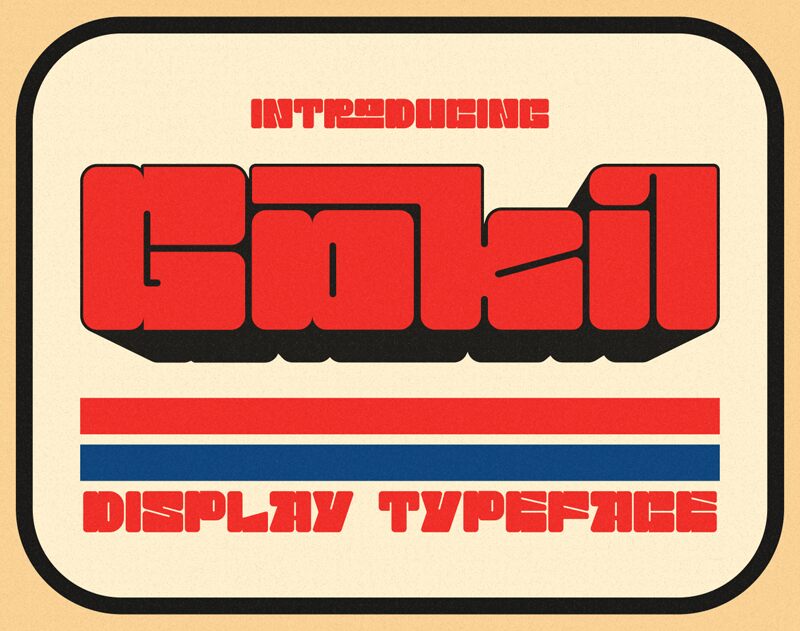
Gokil font by Fajar Ramadan of Eotype is a display typeface with funky groovy letter shapes. Drawing inspiration from retro styles, its geometric modern characters have expanded strokes to add high visual impact. The chunky uppercase characters are sure to stand out, making it a bold font suitable for every versatile project that needs originality.
Use Gokil in editorial headlines and cover designs for books and magazines. Rock your visual identity projects including logotype creation, advertising posters, business cards, labels, outdoor branding and signages among others. This free font also fits digital projects such as social media posts and website design.